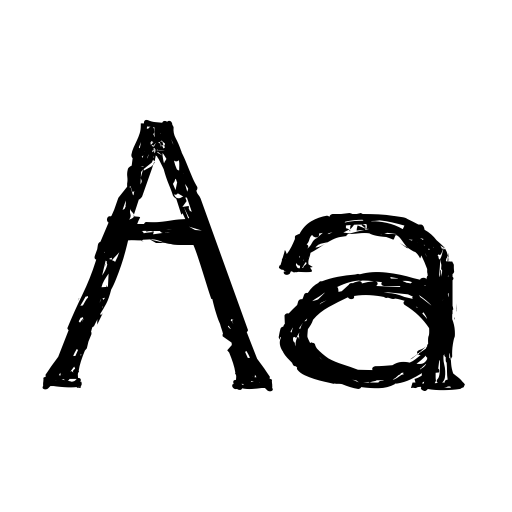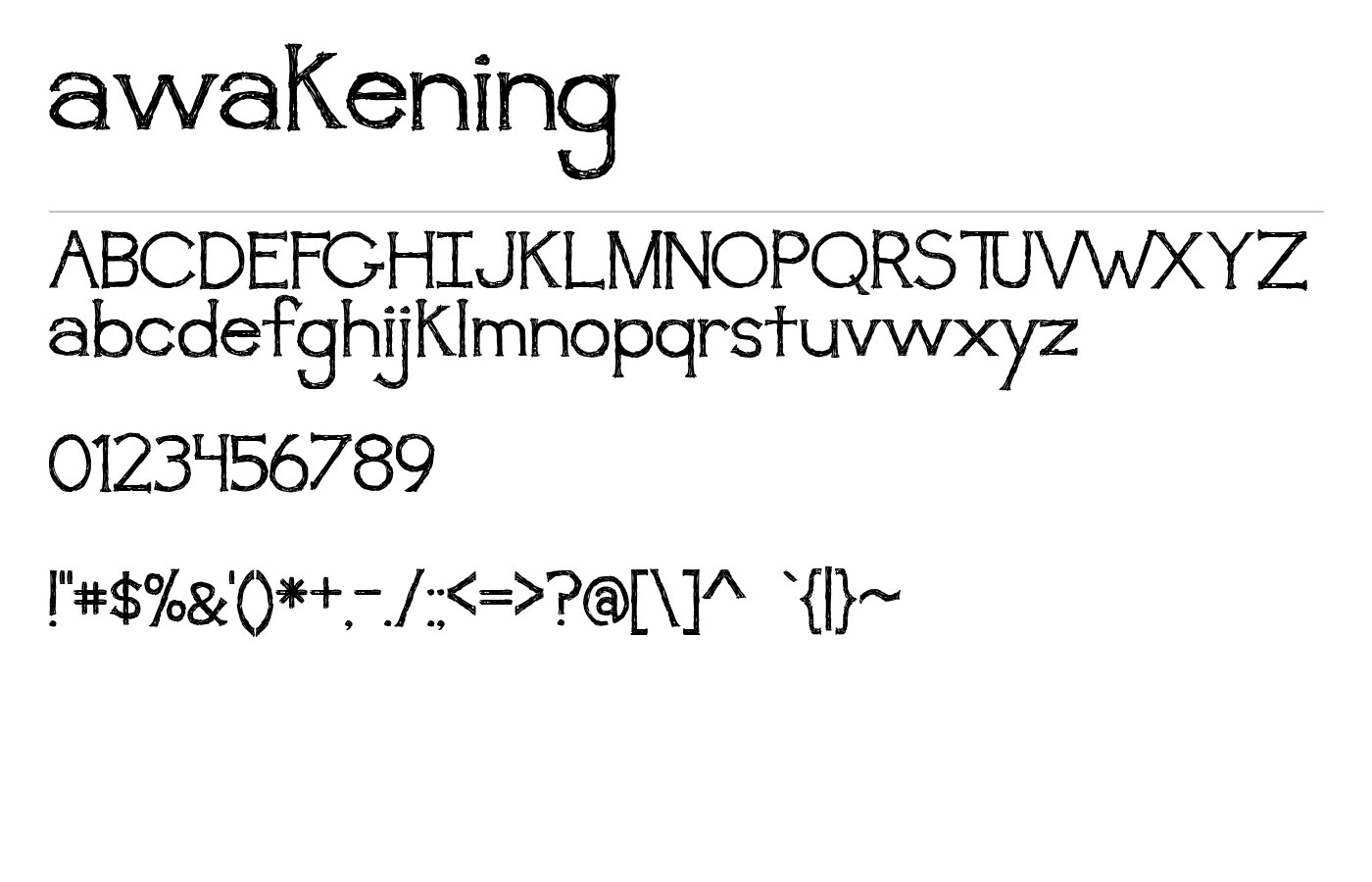
Awakening is a distinctive serif font with a hand-drawn, slightly rough texture that gives it a warm, approachable character. Its irregular strokes and organic shapes create a casual yet elegant feel, making it ideal for creative projects, artistic branding, and informal editorial use where personality and uniqueness are desired. This font works well in headlines and short texts, bringing a touch of individuality and charm to any design.
| Font family | awakening Font |
| Designer | Brittney Murphy |